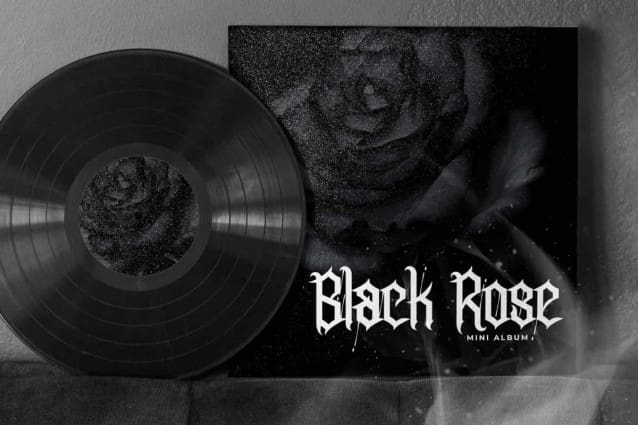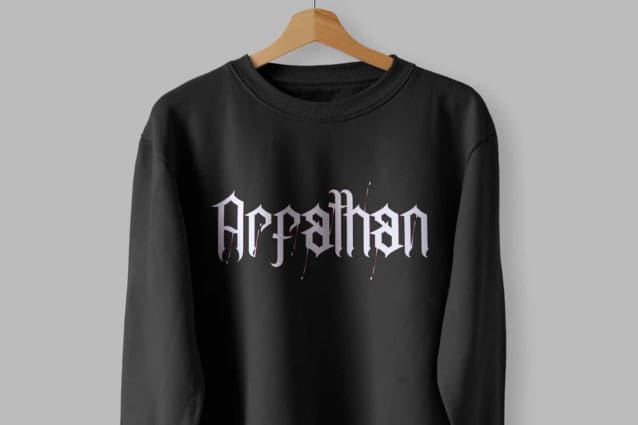
Friday Storm Font
Friday Storm Font is a majestic blackletter display font with gothic style theme designed by NoahType. This font can give a sinister luxury impression and is still clearly readable for your design. It will be perfect for any designs, such as brand image, custom design, invitation, label, marketing material, menu, poster, printing, product packaging, quotes, signage, website, and many more!
Friday Storm Font includes full set of Uppercase and Lowercase Basic Characters, Numerals, Punctuation, and Symbol. This font will give amazing touch and also a perfect choice for many industries, such as accessories, advertising, art, café, fashion, game, movie, music, printing, publishing, etc.